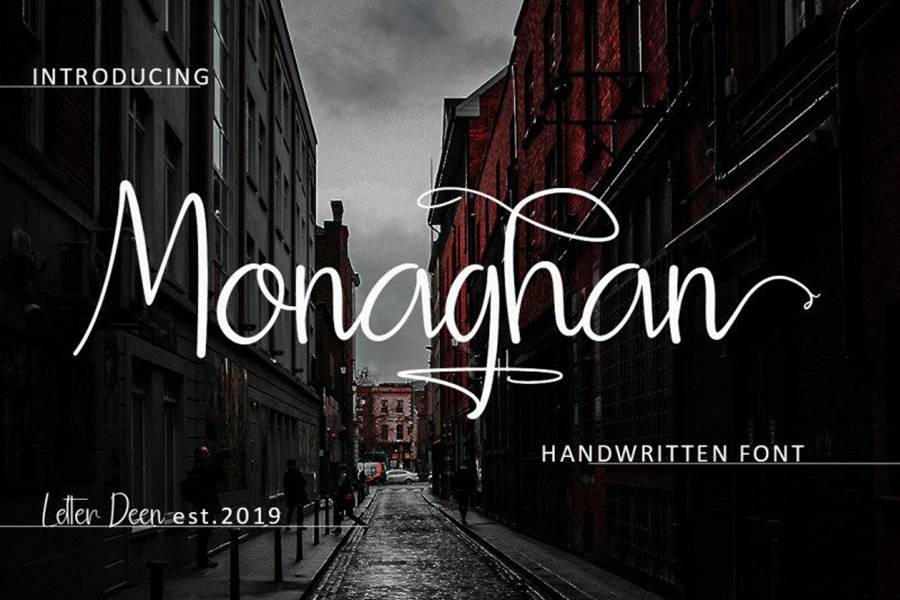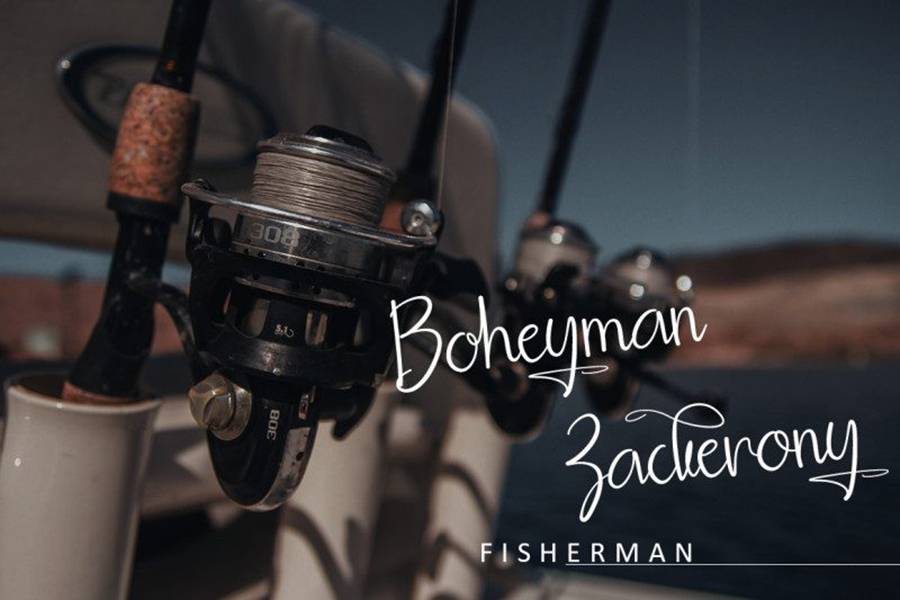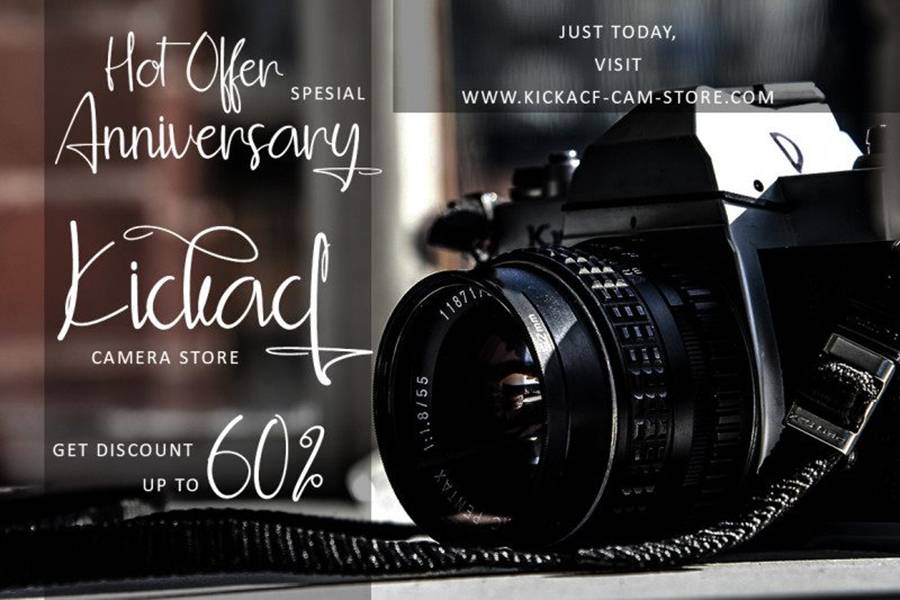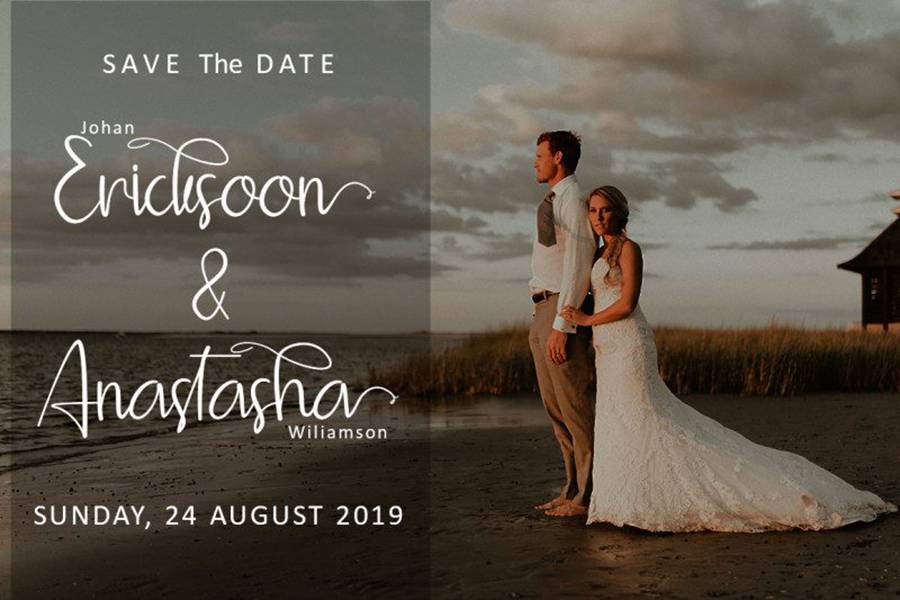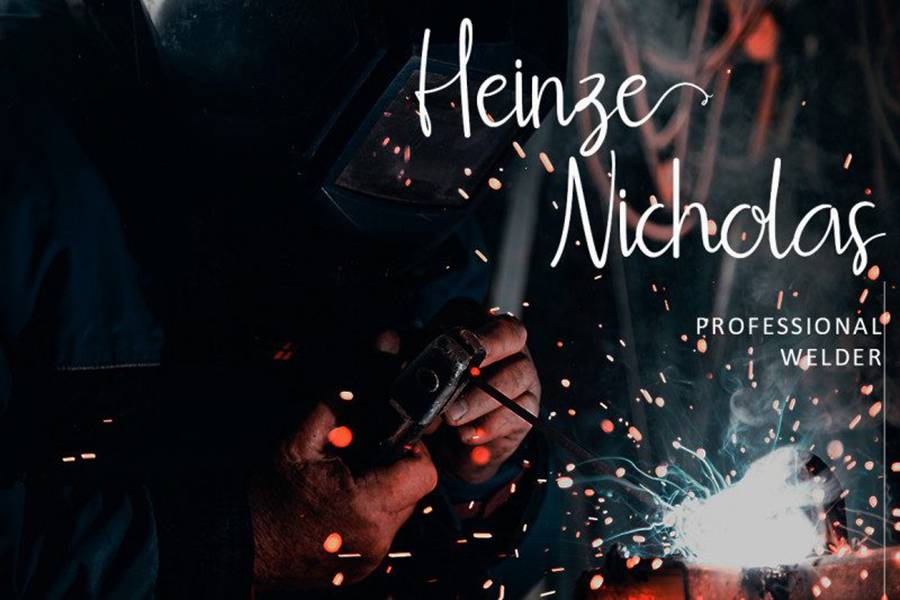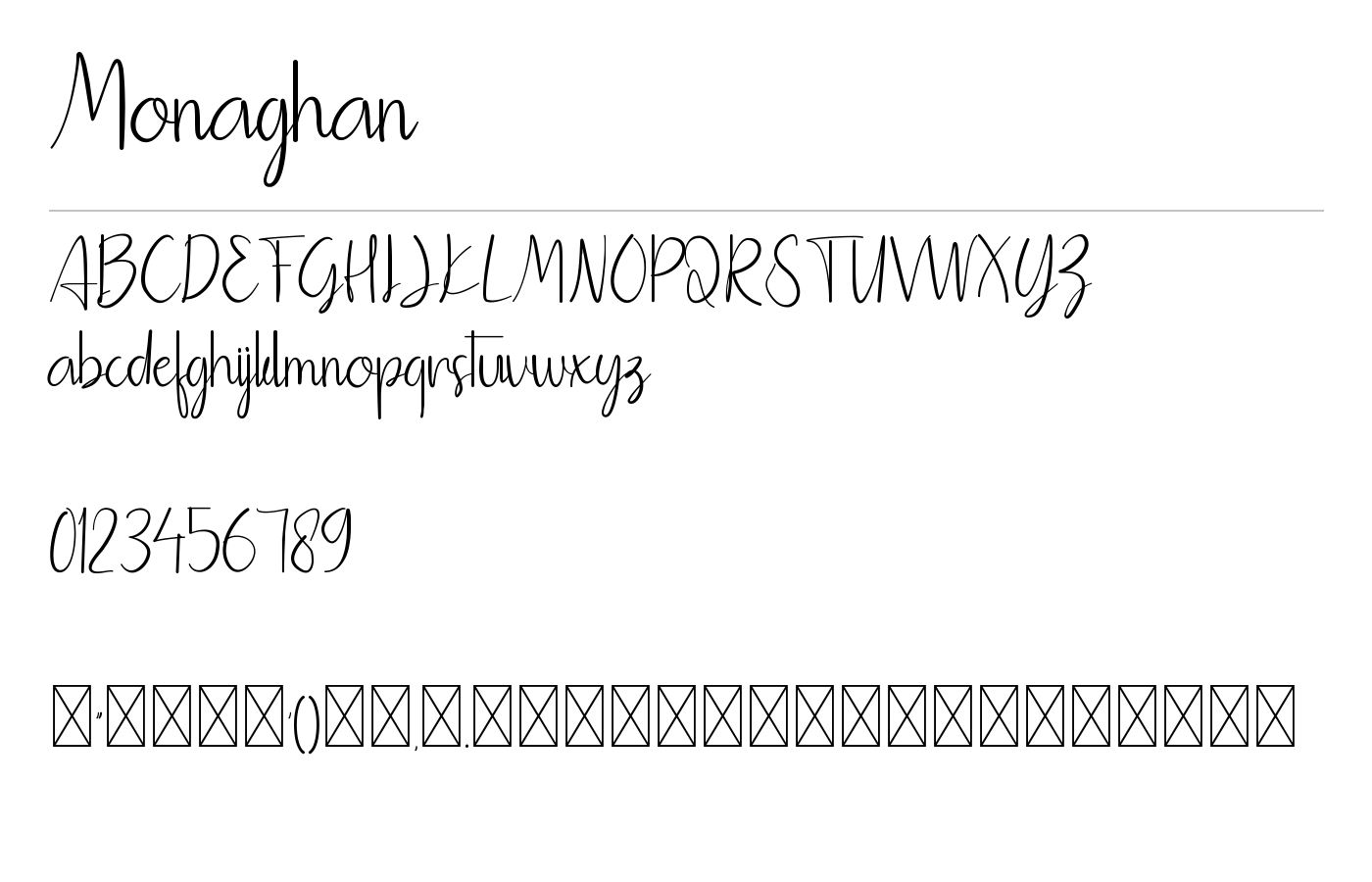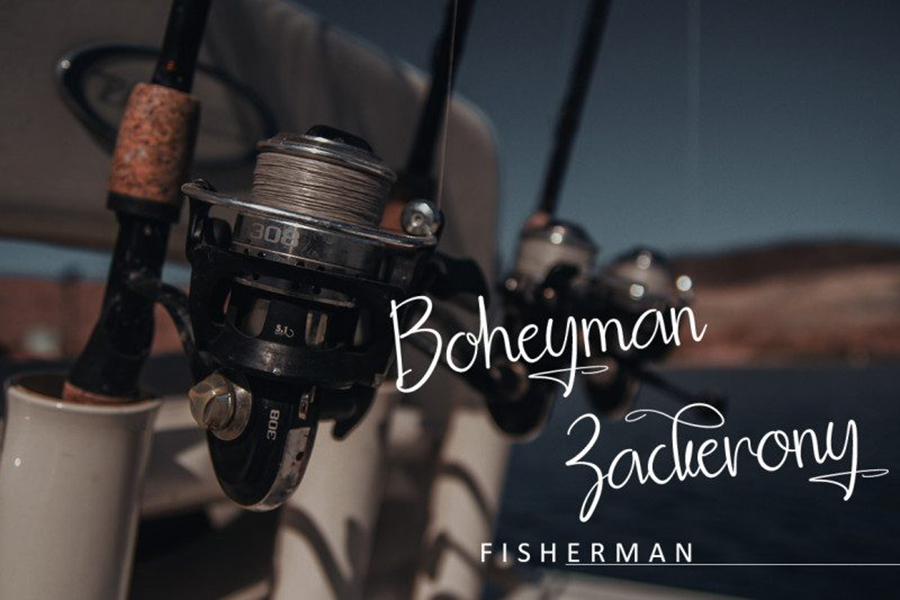
Monaghan Handlettering Font is a delicate, narrow script font with a handwritten, casual feel that combines playful elegance with a modern touch. Its tall, slender letterforms and smooth, flowing strokes make it ideal for creative branding, invitations, and stylish headlines where a personal, artistic vibe is desired. This font works beautifully in projects that aim to convey warmth and approachability while maintaining a chic, contemporary aesthetic.
Monaghan Handlettering Font
About Monaghan Handlettering Font
| Font family | Monaghan Handlettering Font |
| Release date | 2019-08-20 |
| Designer | Muhammad Wahyudin |
| Trademark | Letter Deen Co.™ |